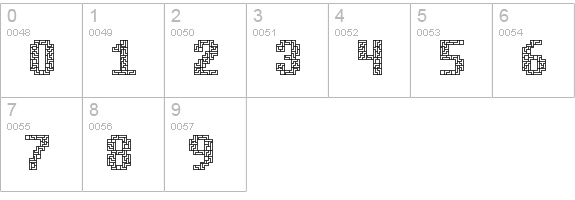
Tetricide BRK Font Details
Tetricide BRK font is a modern and stylish typeface that exudes a sense of sophistication and elegance. With its sleek lines and sharp edges, this font is perfect for adding a touch of class to any design project. Whether you're creating a logo, poster, or website, Tetricide BRK font is sure to make a bold statement. The best part? Tetricide BRK font is completely free to download at FontsMarket.com. That's right, you can easily access this stunning font without spending a dime. Take advantage of this amazing opportunity to enhance your projects with the beauty and versatility of Tetricide BRK font. Download it today and let your creativity soar!